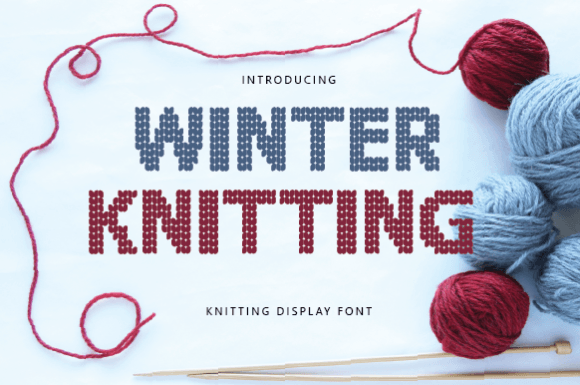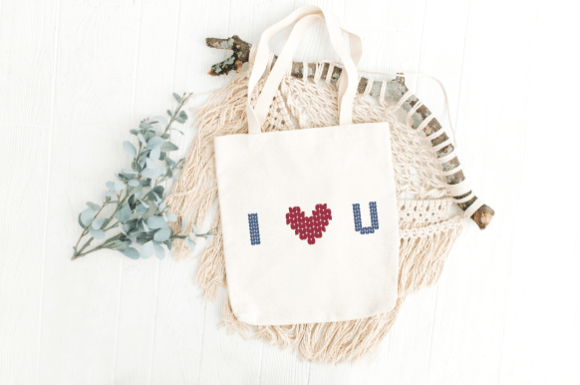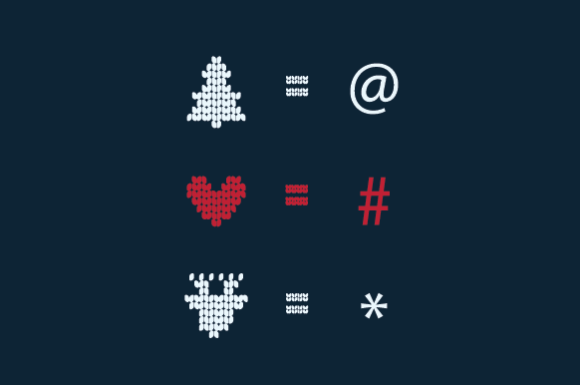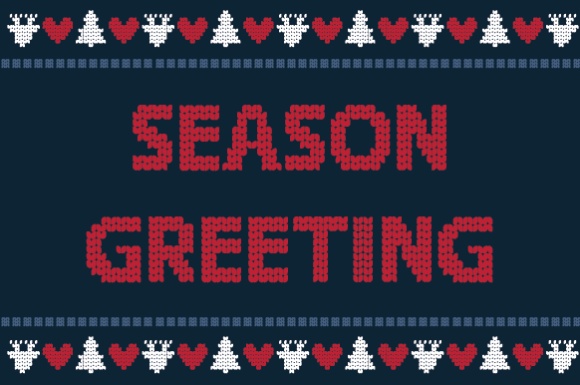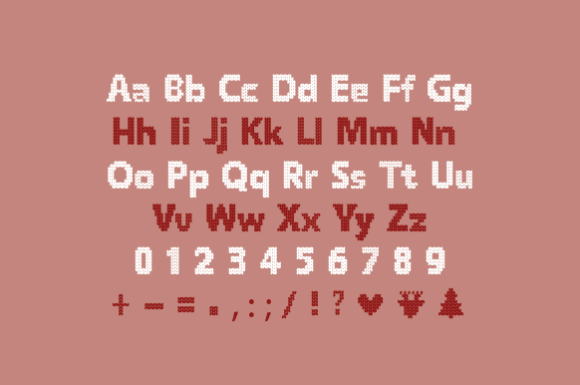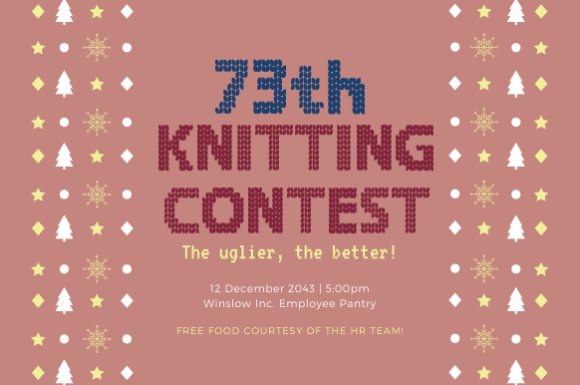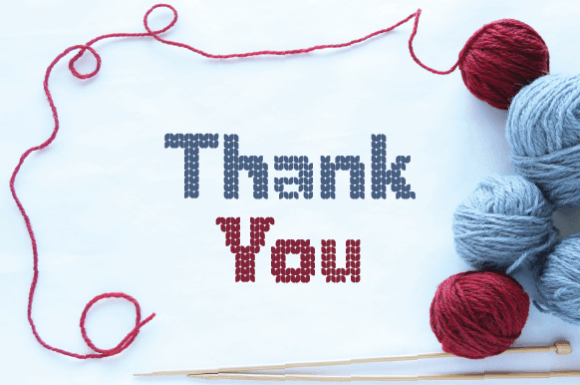
Winter Knitting Font
Winter Knitting is festive and fun font to create knitting pattern style quote by yourself. Come with special character bring a knitted icon like Christmas tree, heart, reindeer to add more fun design. Have fun!